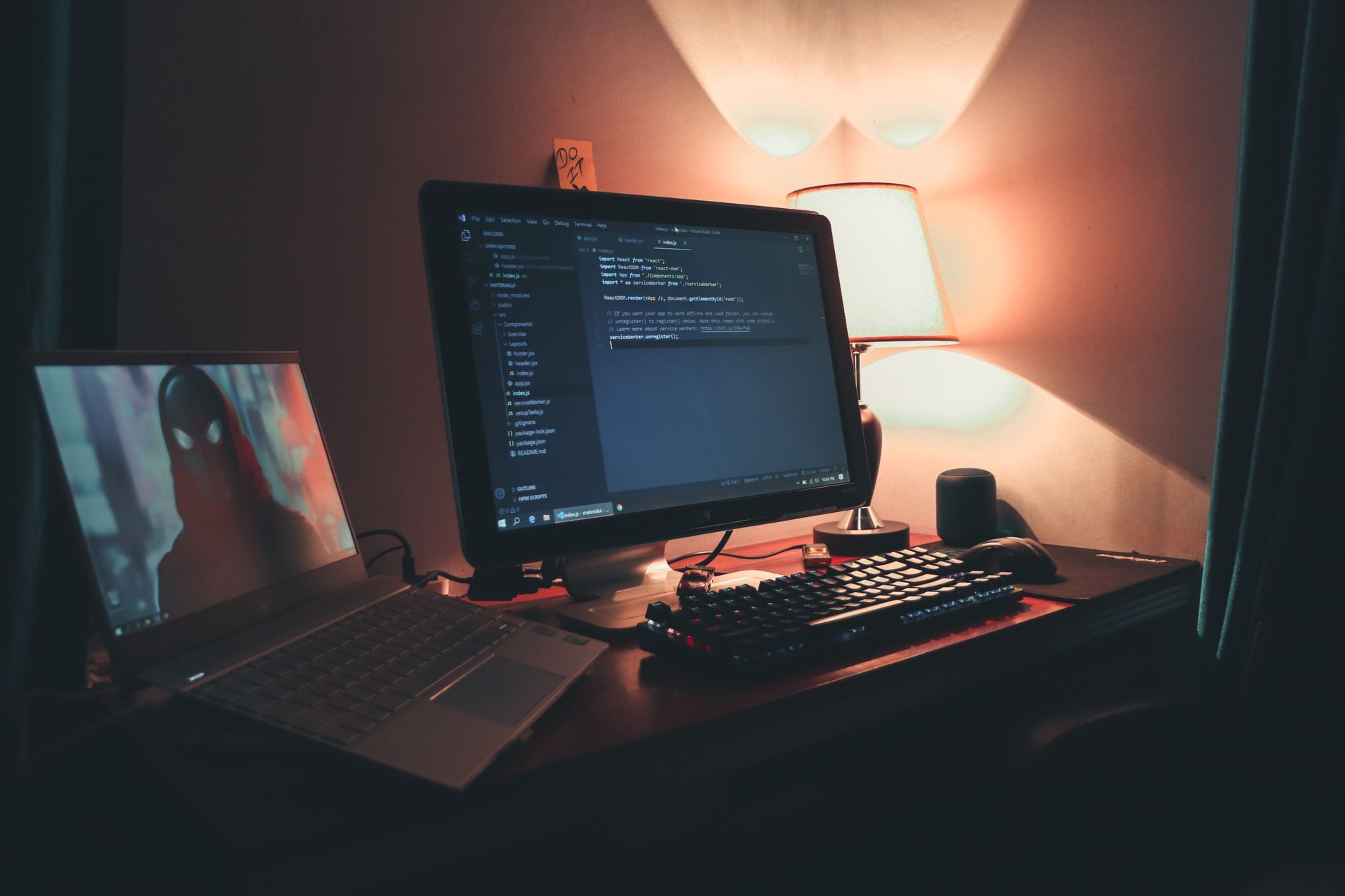
Dark mode is no longer a luxury or a trendy toggle; it is a core user preference. Users expect a seamless transition from light to dark interfaces, especially in low-light environments.
However, many designers and developers make a fundamental mistake when building dark mode interfaces: they simply invert their color palette and call it a day.
When you display light text on a dark background, a optical illusion occurs that degrades readability and causes eye strain. To create a truly premium dark mode user interface, you must adapt your typography. Here is how to master the "dark side" of type.
To understand why simple color inversion fails, we have to look at physics and human biology. This visual anomaly is known as irradiation (or halation).
When light text is set against a dark background, the light emitting from the screen bleeds into the surrounding dark pixels. To the human eye, this makes the white letters appear bolder, thicker, and fuzzier than they actually are. Conversely, dark text on a light background absorbs light, making the characters feel crisper and thinner.
If you keep the exact same font weight, line height, and letter-spacing in both light and dark modes, your dark mode copy will look cramped, overly bold, and highly fatiguing to read over long periods.
To counteract irradiation and deliver a comfortable reading experience, implement these four typographic adjustments.
Because light text on dark backgrounds glows and expands, you should slightly decrease the weight of your body copy and headings in dark mode.
If your light mode uses a Regular (400) weight for body copy, consider dropping it to a Light (300) weight in dark mode. If you are using variable fonts, you have even finer control and can shave off 30 to 50 weight units.
Since characters appear thicker in dark mode, the negative space inside and between the letters shrinks. To prevent characters from blending together, slightly increase your letter-spacing.
Adding a tiny amount of tracking (e.g., 0.01em to 0.03em) lets the letters breathe and keeps your text sharp and legible.
Maximum contrast is actually the enemy of readability in dark mode. Placing pure white text (#FFFFFF) on a pitch-black background (#000000) creates harsh high-contrast vibrations that cause immediate eye fatigue, known as "halation blooming."
Instead, soften the contrast:
#E2E8F0 or #F1F5F9).#0F172A or #121212).To compensate for the visual weight of glowing text, give your lines of text more room to breathe. Increasing your line-height by a small percentage (e.g., from 1.5 to 1.55 or 1.6) prevents the glowing text on one line from bleeding into the line below it.
With modern CSS, implementing these typographic micro-adjustments is highly straightforward. If you use Variable Fonts, you can dynamically adjust the font-weight axes dynamically using CSS Custom Properties.
Here is a practical example of how to implement these dark mode adjustments cleanly using standard CSS:
If you are not using a variable font, you can toggle between standard font weights like this:
Great typography is invisible; it allows users to absorb information effortlessly. In dark mode, invisibility requires intentional design compensation. By softening your contrast, loosening your tracking, lowering your font weights, and widening your line heights, you can design a dark mode interface that is as functional and comfortable as it is beautiful.
Take a look at your current project in dark mode. Does the text glow too brightly? Do the paragraphs look dense? A few minor CSS tweaks can completely transform your user experience from eye-straining to eye-pleasing.